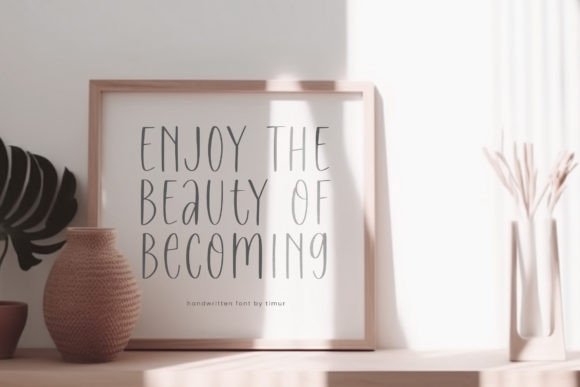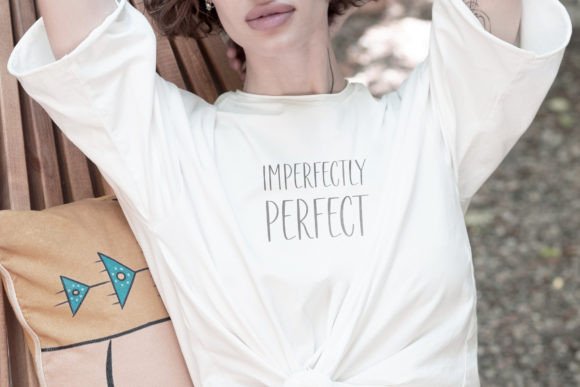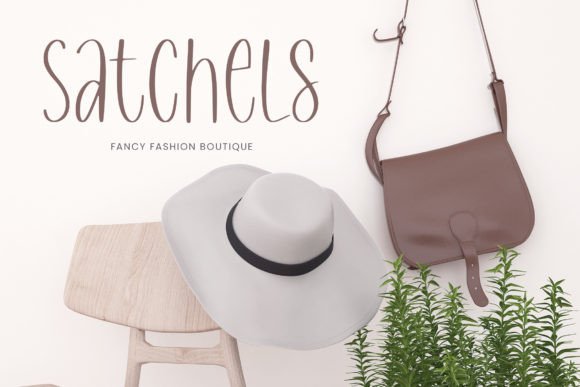
Introduction to Bakehouse Font
This font echoes the timeless elegance of pen to paper, forging a connection that transcends the digital divide.
Each curve and loop tells a story, infusing words with the authenticity that only the human touch can provide where letters become a brush, and every stroke paints a tale of creativity and character.
Bakehouse Font offers exceptional quality and versatility, making it a valuable addition to your design toolkit. Whether you’re creating for personal projects or commercial use, Bakehouse Font delivers professional results.